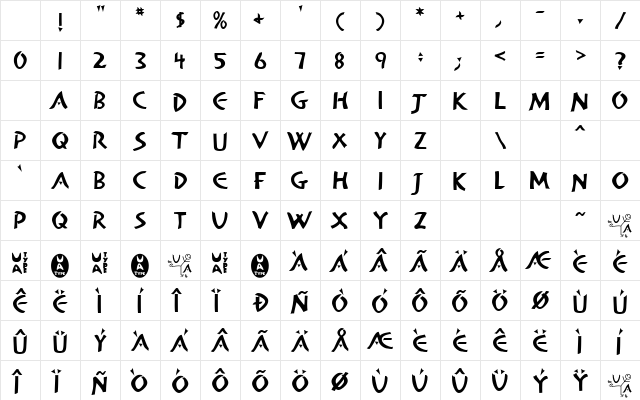
Complete Alan Den Regular glyph index. Displaying only characters natively supported by Alan Den Regular font.
Alan Den is a composed and adaptable typeface that performs quietly and consistently across a wide range of design contexts.
Who designed the Alan Den Regular font?